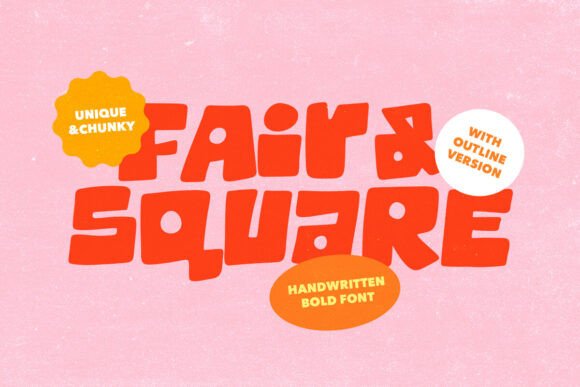
Introducing Fair Square Font: The Ultimate Bold and Chunky Font for Stunning Designs
In the world of typography, fonts play a crucial role in making a design stand out. A well-chosen font can elevate a design from ordinary to extraordinary. If you’re looking for a font that can add a touch of uniqueness and boldness to your design, look no further than Fair Square Font. In this article, we’ll explore the features and benefits of Fair Square Font and why it’s the perfect choice for your next design project.
What is Fair Square Font?
Fair Square Font is a chunky, bold font that boasts unique uppercase and lowercase letters. What sets it apart is the ability to combine these letters in a single word, creating a visually stunning effect. This font is perfect for designers who want to add a touch of personality to their designs.
Key Features of Fair Square Font
- Unique Uppercase and Lowercase Letters: Fair Square Font features unique uppercase and lowercase letters that can be combined to create a one-of-a-kind look.
- Italic and Outline Versions: The font comes with italic and outline versions, giving you the flexibility to choose the style that best suits your project.
- Chunky and Bold: Fair Square Font is a chunky, bold font that’s perfect for making a statement.
- Multipurpose: You can use Fair Square Font for a variety of design projects, including posters, quotes, branding, and logotypes.
How to Use Fair Square Font in Your Designs
Fair Square Font is a versatile font that can be used in a variety of design projects. Here are some ideas to get you started:
- Posters: Use Fair Square Font to create eye-catching posters that grab attention.
- Quotes: Add a touch of personality to your quotes with Fair Square Font’s unique uppercase and lowercase letters.
- Branding: Use Fair Square Font to create a bold and memorable brand identity.
- Logotypes: Fair Square Font is perfect for creating logotypes that make a statement.
Pairing Fair Square Font with Other Fonts
Fair Square Font can be paired with other fonts to create a unique and visually appealing design. Here are some tips for pairing Fair Square Font with other fonts:
- Contrast with Script Fonts: Pair Fair Square Font with a script font for a beautiful contrast between bold and elegant.
- Match with Sans-Serif Fonts: Pair Fair Square Font with a sans-serif font for a clean and modern look.
- Experiment with Serif Fonts: Pair Fair Square Font with a serif font for a classic and sophisticated look.
Tips and Tricks for Using Fair Square Font
Here are some tips and tricks for getting the most out of Fair Square Font:
- Use it Sparingly: Fair Square Font is a bold font, so use it sparingly to avoid overwhelming your design.
- Experiment with Colors: Fair Square Font looks great in a variety of colors, so experiment with different colors to find the one that works best for your design.
- Play with Layout: Fair Square Font can be used in a variety of layouts, so don’t be afraid to experiment and find the one that works best for your design.
Fair Square Font is a unique and versatile font that’s perfect for designers who want to add a touch of personality to their designs. With its chunky, bold letters and unique uppercase and lowercase combinations, Fair Square Font is sure to make your design stand out. Whether you’re creating posters, quotes, branding, or logotypes, Fair Square Font is the perfect choice.